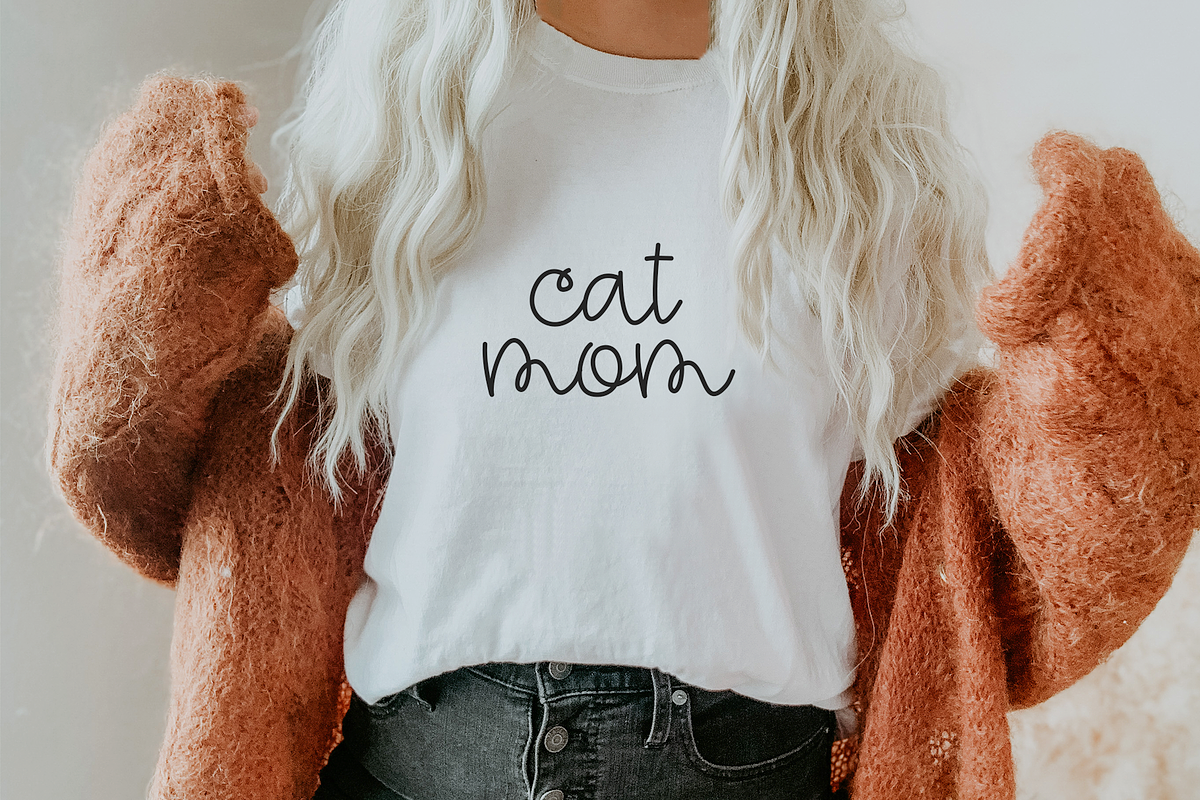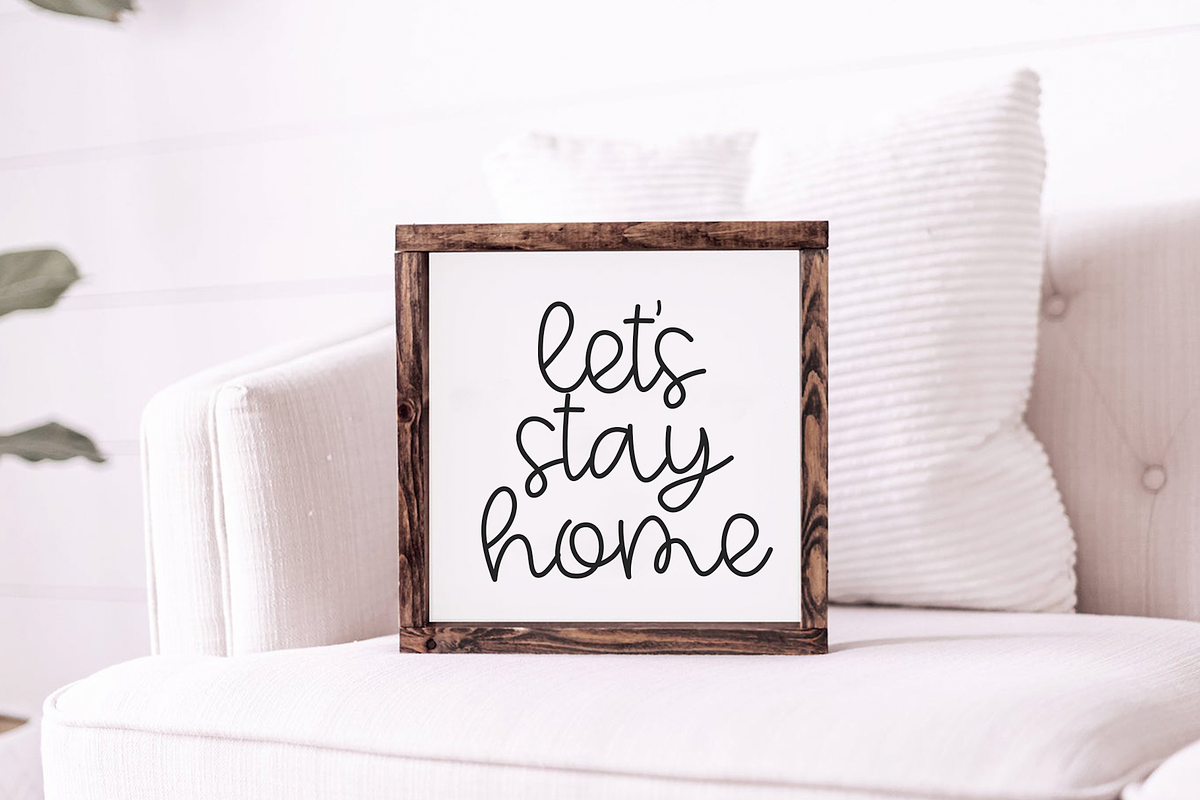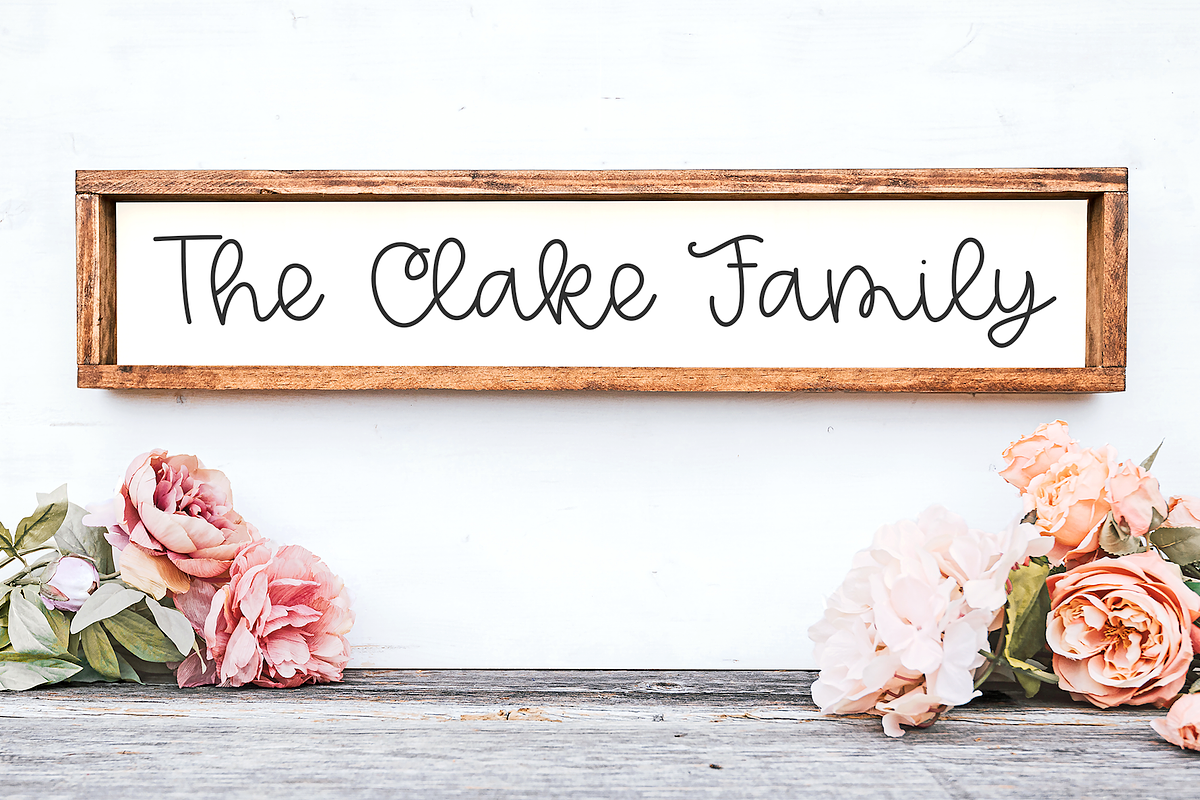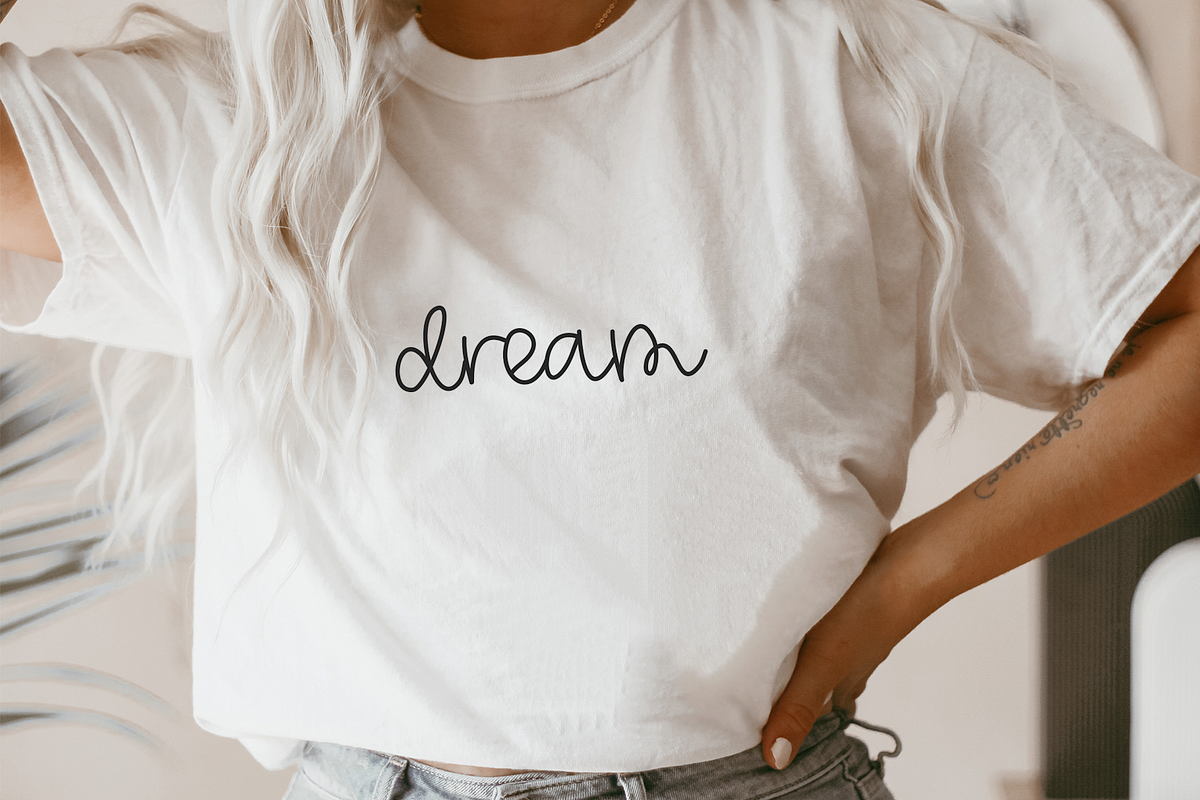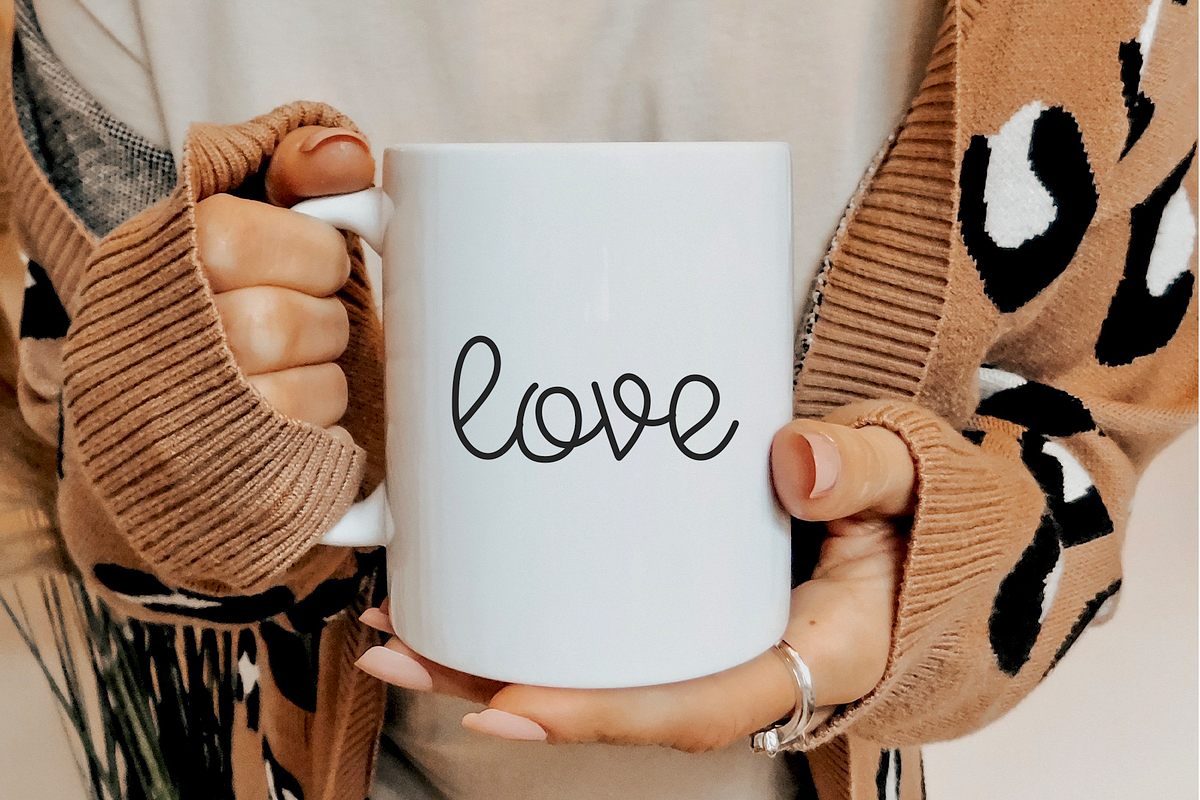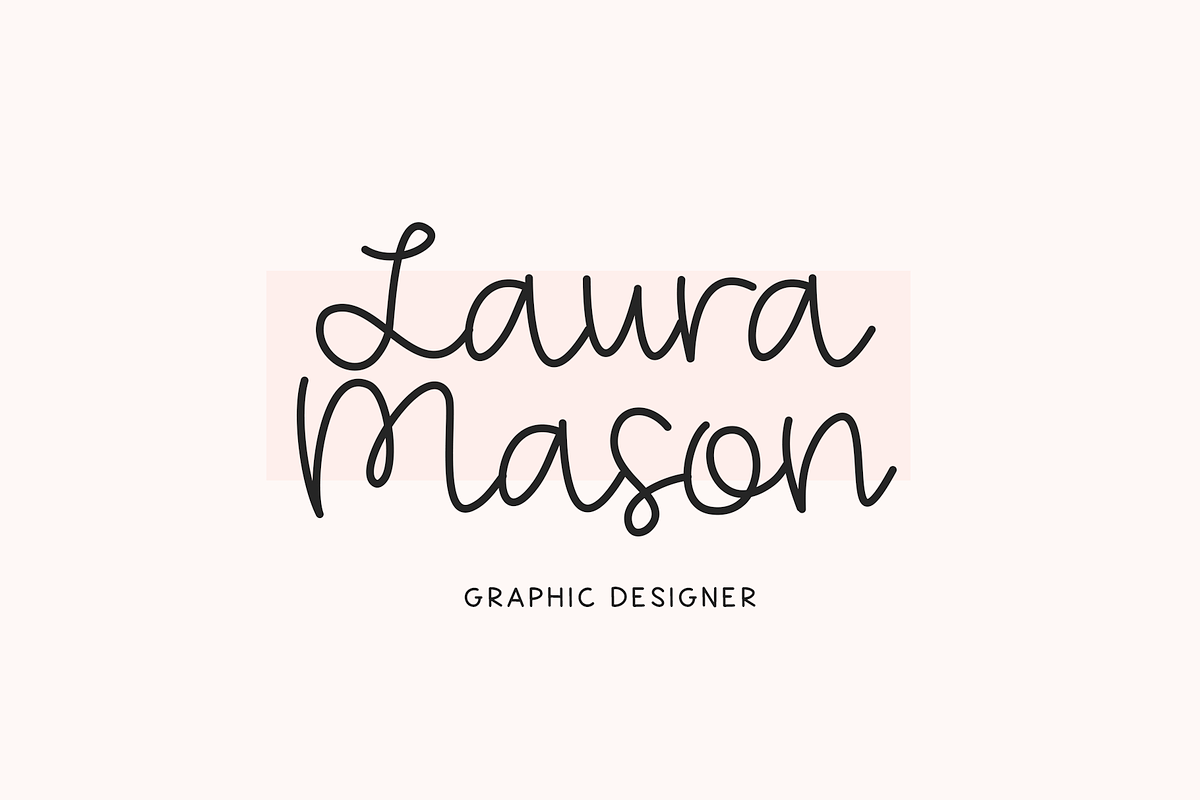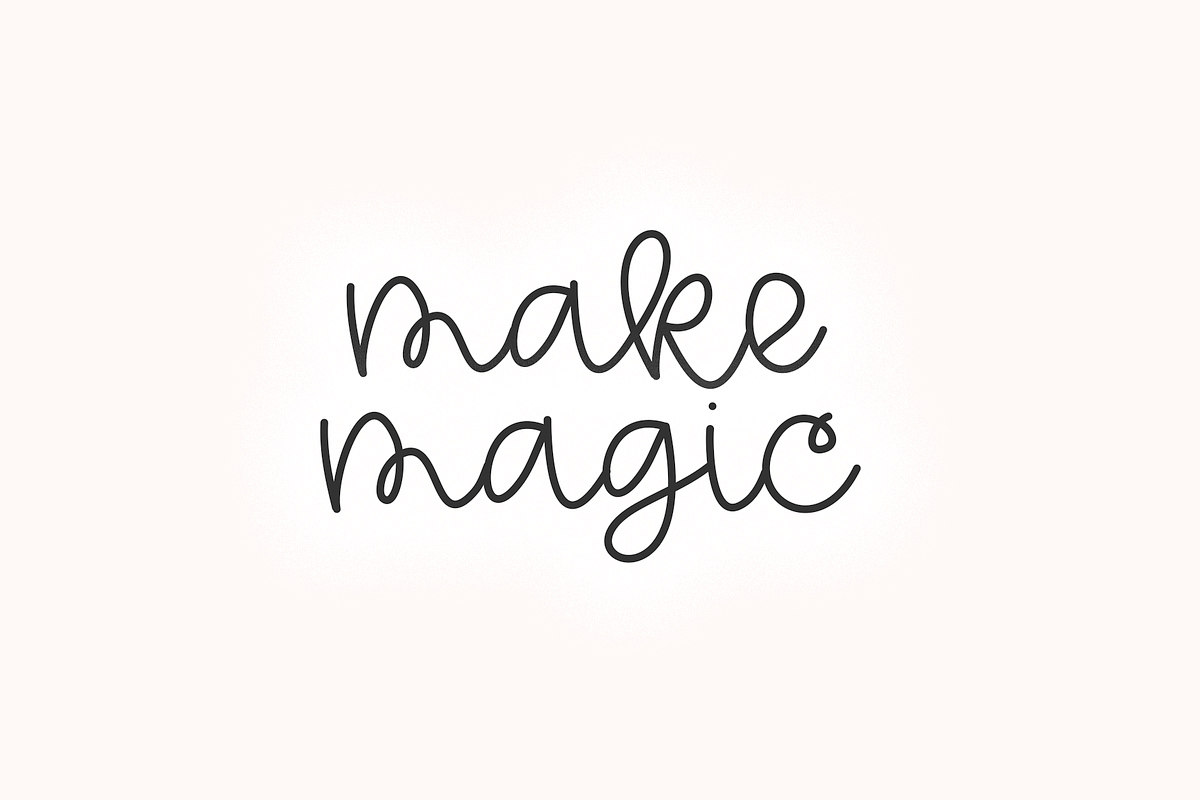
Vanilla Cupcake - Script Font
Vanilla Cupcake is a cute handwritten script font. This font is perfect for quotes, headings, blogs, logos, invitations and more!